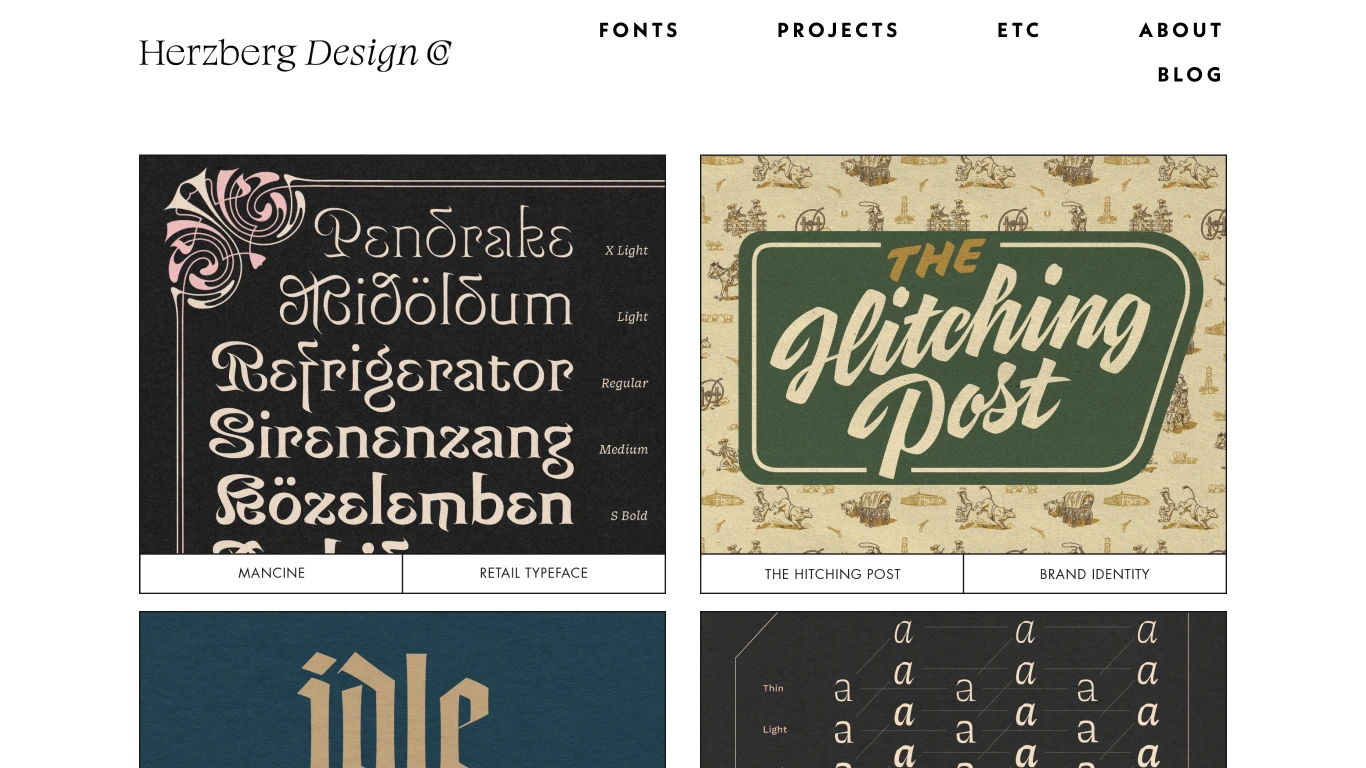
Herzberg Design Co is a New Orleans-based studio founded by Dutch designer Matthijs Herzberg, specializing in type design, brand identity, and art direction. Known for its bold, unconventional style and meticulous attention to detail, the studio produces work that is both expressive and purposeful. Notable typefaces include Cloisterfuch, a striking blackletter with exaggerated forms; Fang, created during quarantine as a reflection of creative exploration; and Schmaltzy, a flexible typeface featured in a range of design projects. Matthijs Herzberg’s work has been recognized by the Type Directors Club for excellence in type design.